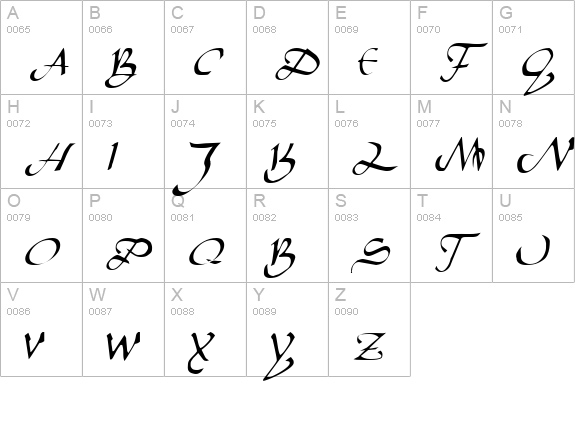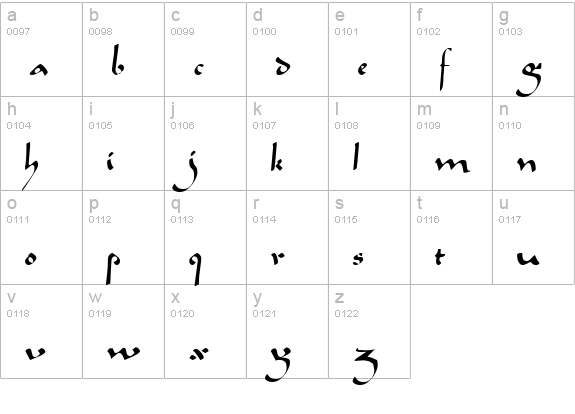
Caliph Regular Font Details
Caliph Regular is the standard, neutral variant in the Caliph typeface family \xE2\x80\x94 well suited to general body text, paragraphs, and standard typographic work.
Caliph Regular font is a timeless and elegant typeface that exudes sophistication and charm. With its clean lines and classic design, this versatile font is perfect for a wide range of projects, from branding and logos to invitations and editorial design. What sets Caliph Regular apart is its seamless blend of modernity and tradition, making it a truly versatile choice for any designer looking to add a touch of class to their work. The font's balanced proportions and distinctive curves give it a unique personality that is both contemporary and timeless. And the best part? Caliph Regular is completely free to download at FontsMarket.com! So whether you're a seasoned designer or just starting out, this font is a must-have addition to your collection. Don't miss out on the opportunity to elevate your designs with the elegance of Caliph Regular.